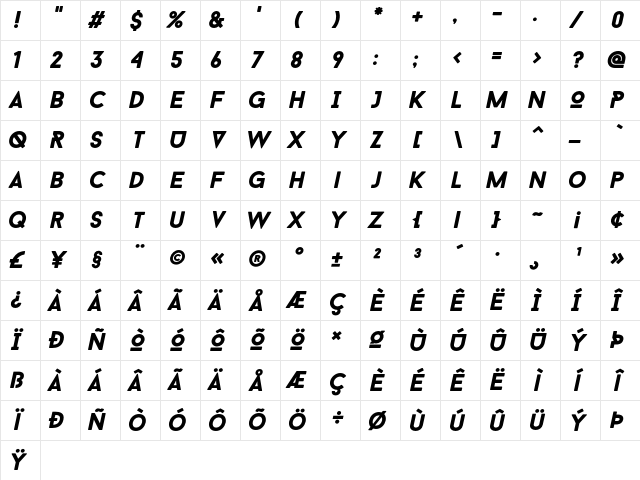
Baron Neue Black Italic
Foundry: Frank Hemmekam
Designer: Frank Hemmekam
Design Context for Baron Neue
Baron Neue is a composed and adaptable typeface that performs quietly and consistently across a wide range of design contexts. The slanted form adds forward momentum and visual energy.
Pro Tip: Use Baron Neue for emphasis, pull quotes, and subheadings where its slanted energy can add rhythm to the layout.
Who designed the Baron Neue Black Italic font?